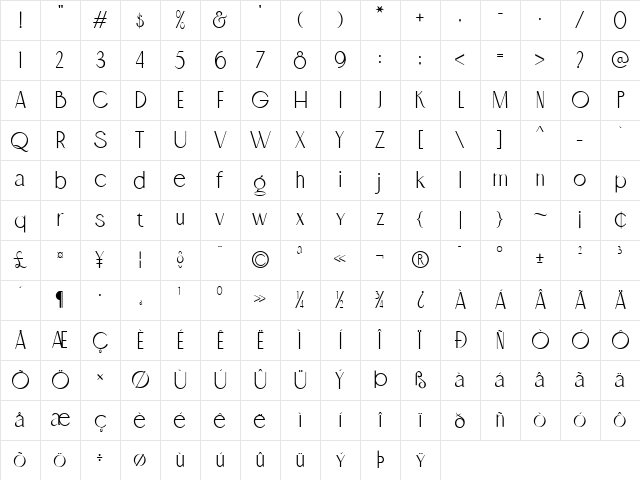
Cafgone Regular Free Font
Cafgone Regular
Designer: Wildan Suprian Syah
Design Context for Cafgone
Cafgone is a composed and adaptable typeface that performs quietly and consistently across a wide range of design contexts.
Pro Tip: Use Cafgone in both headline and body roles to test its range before committing to a single application.